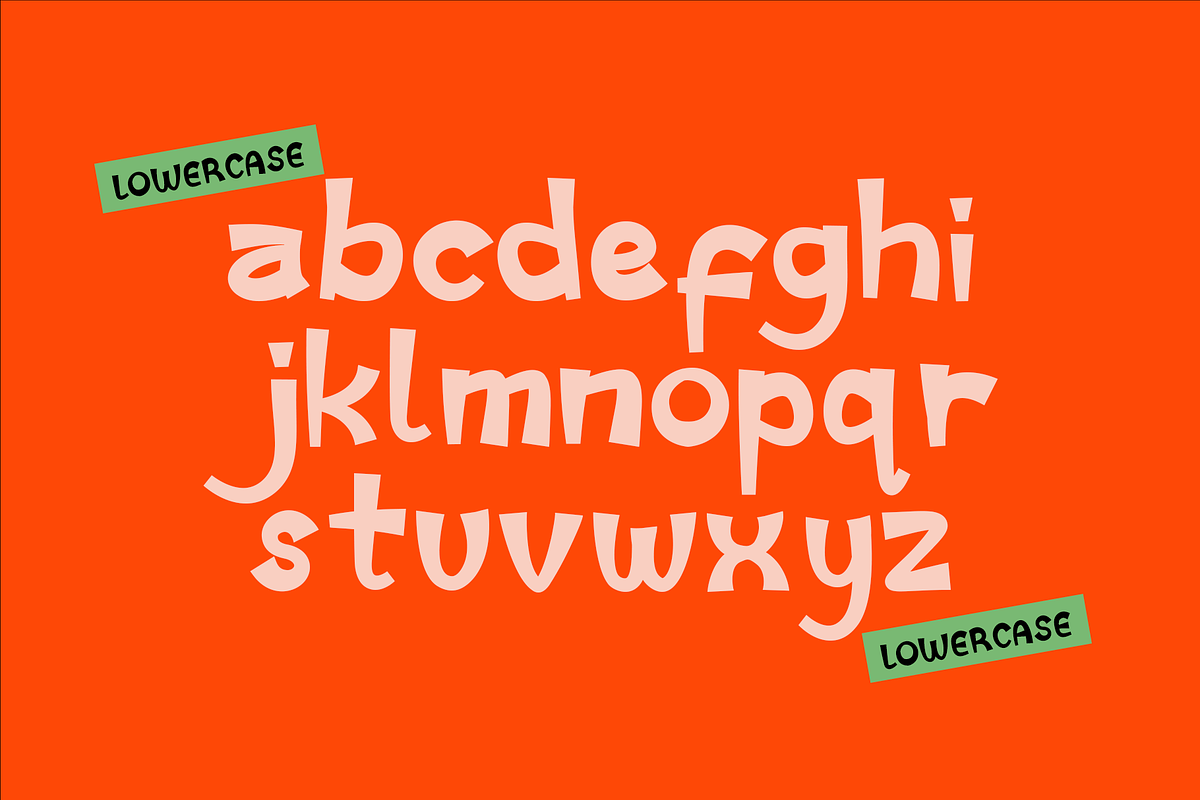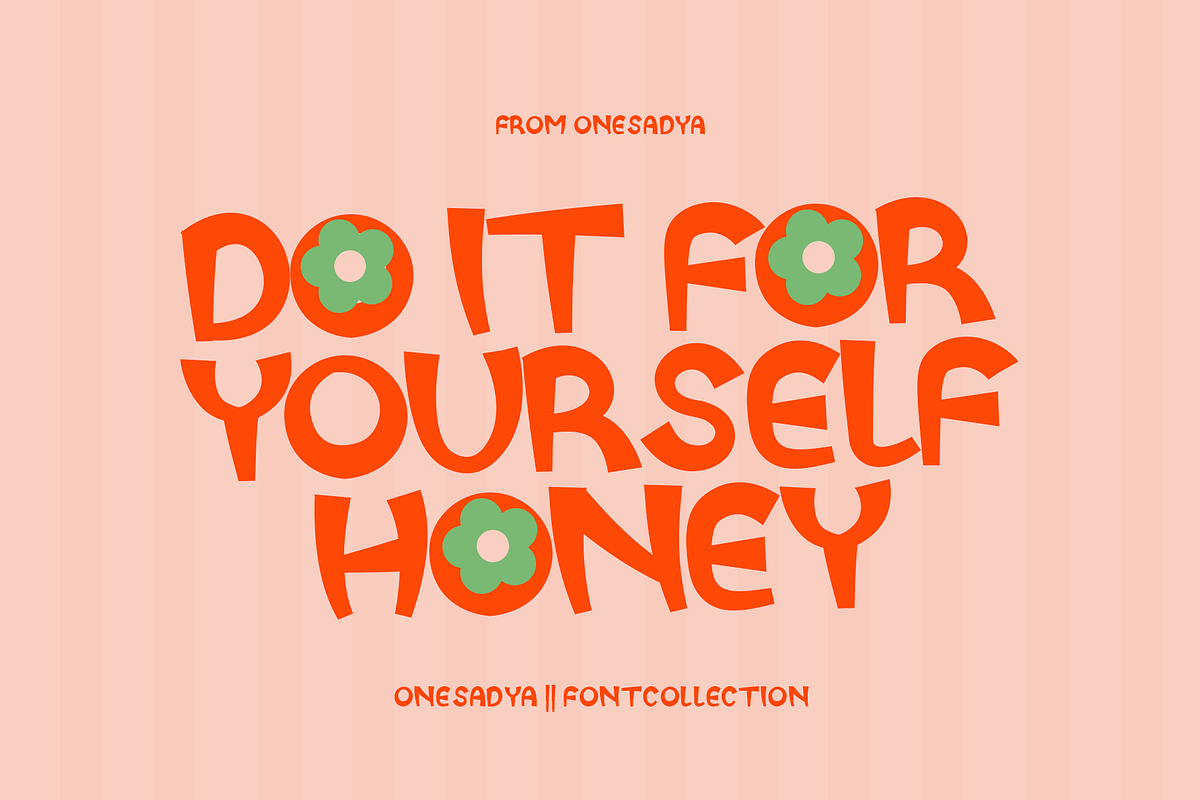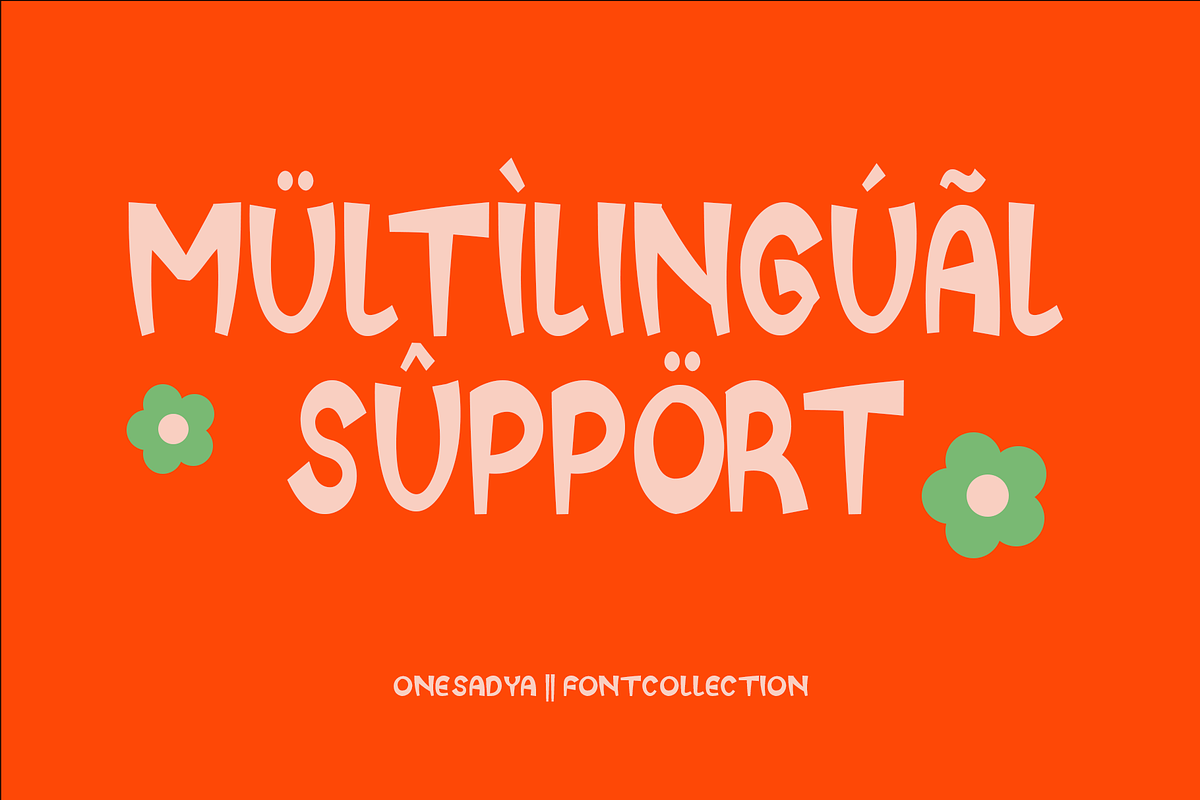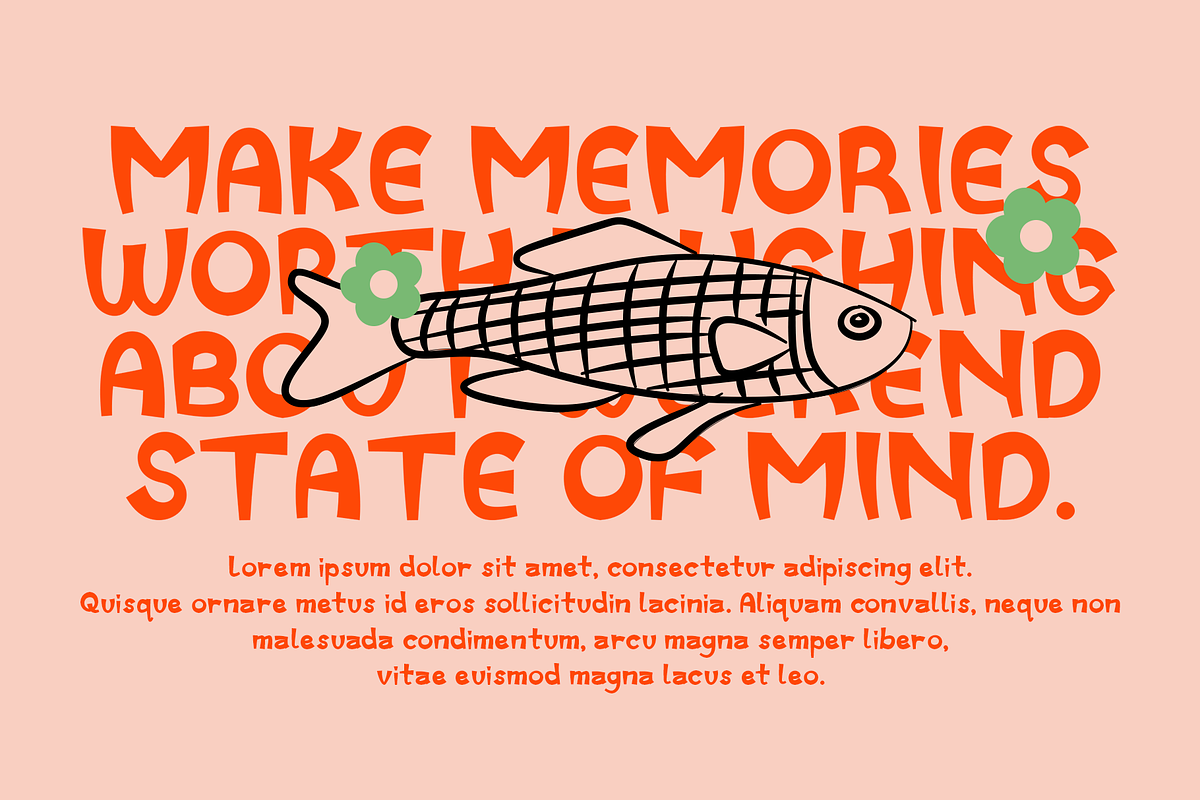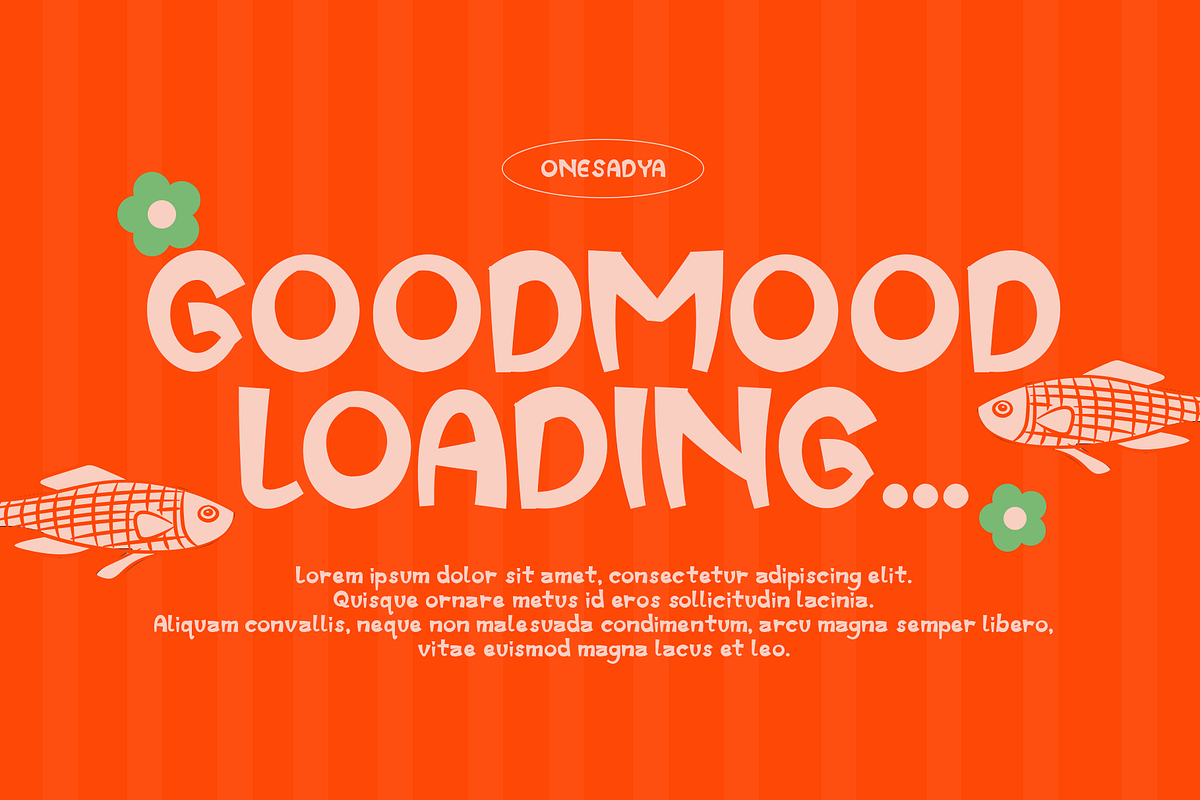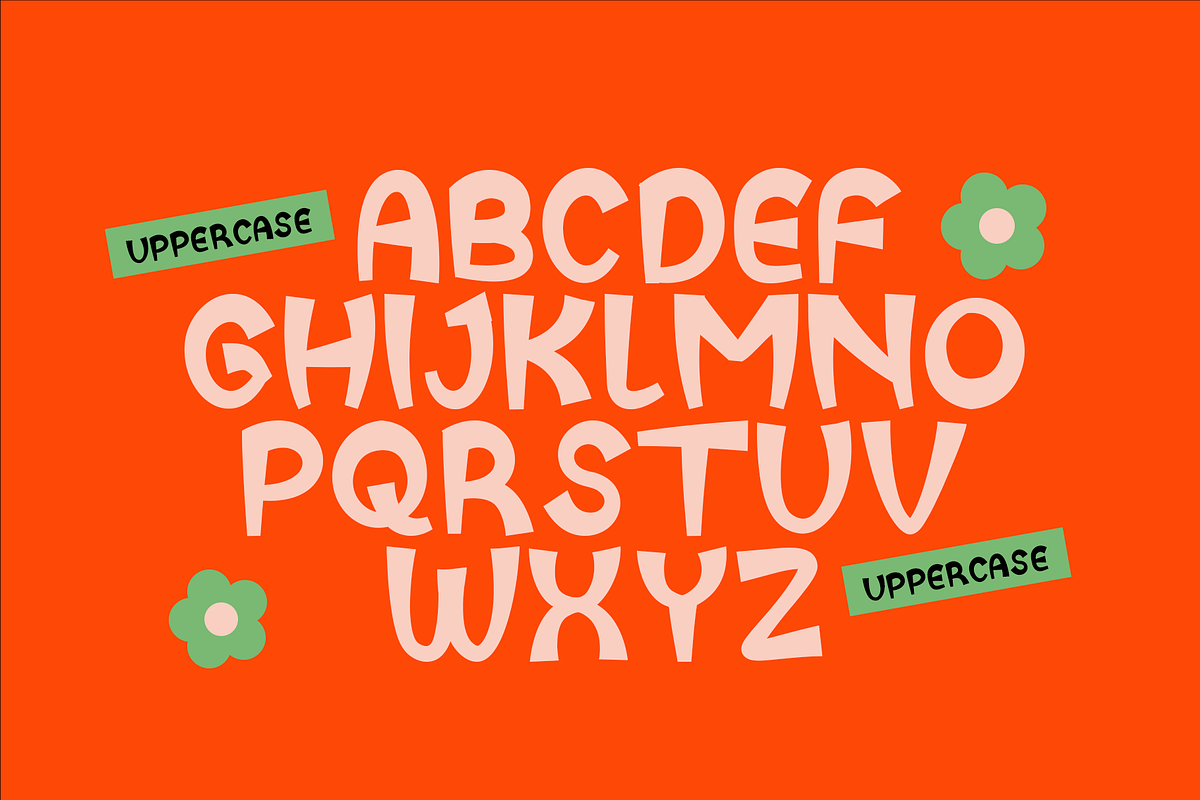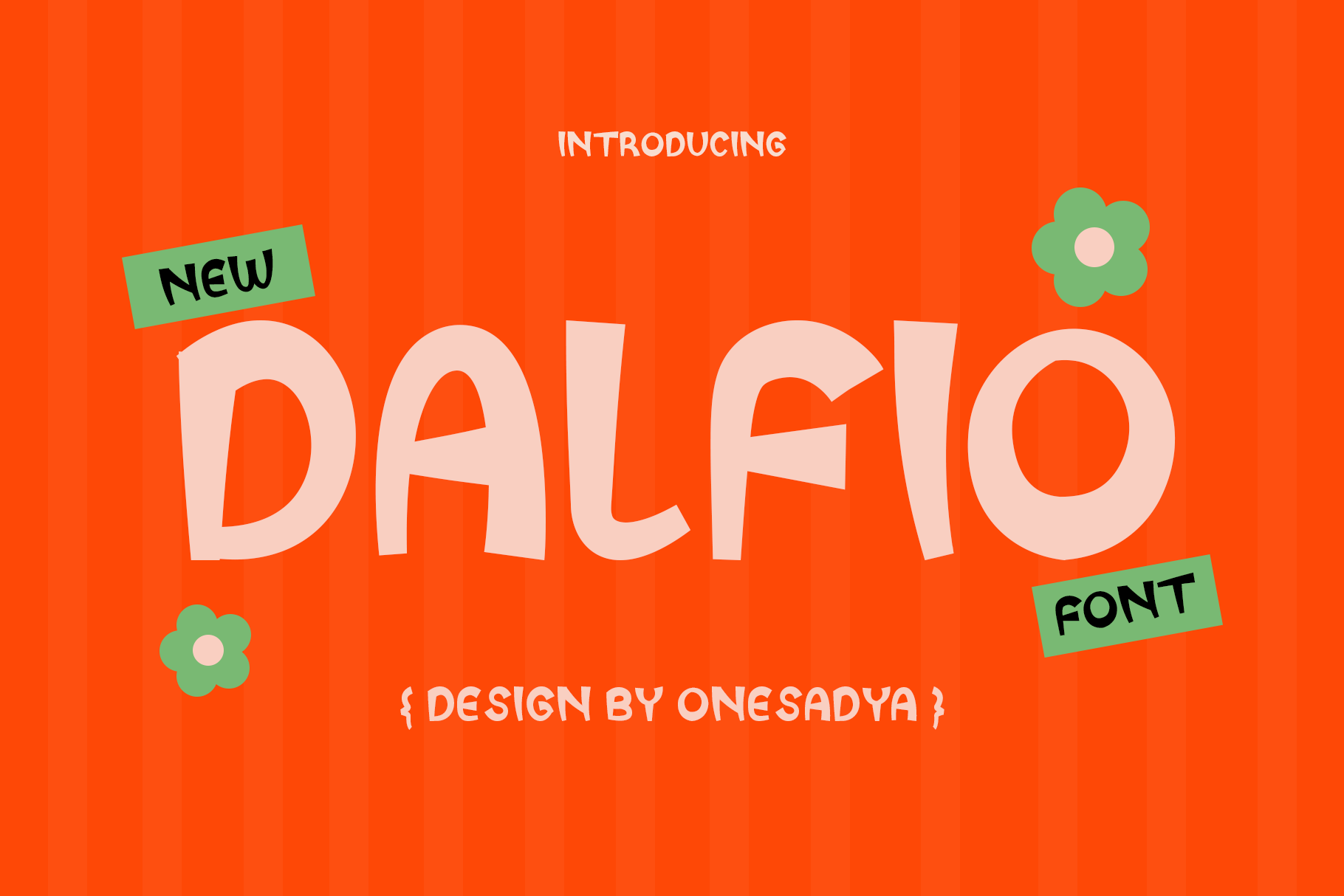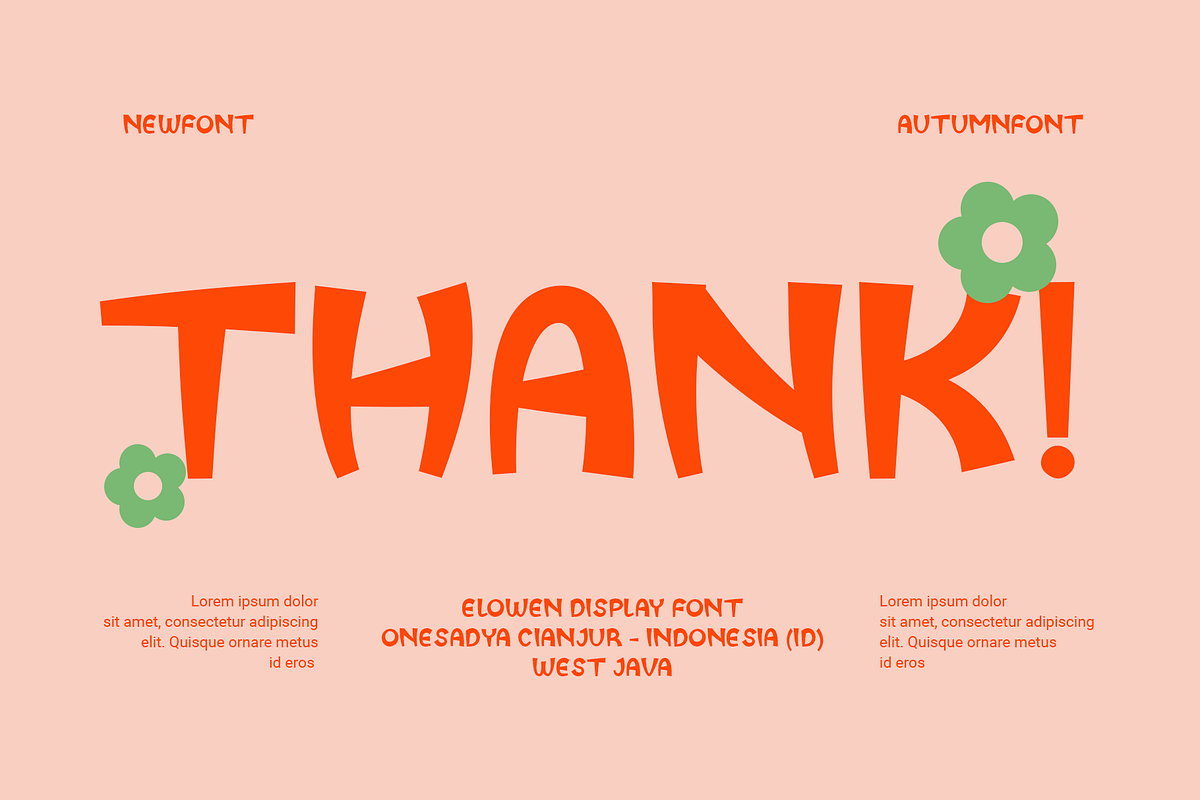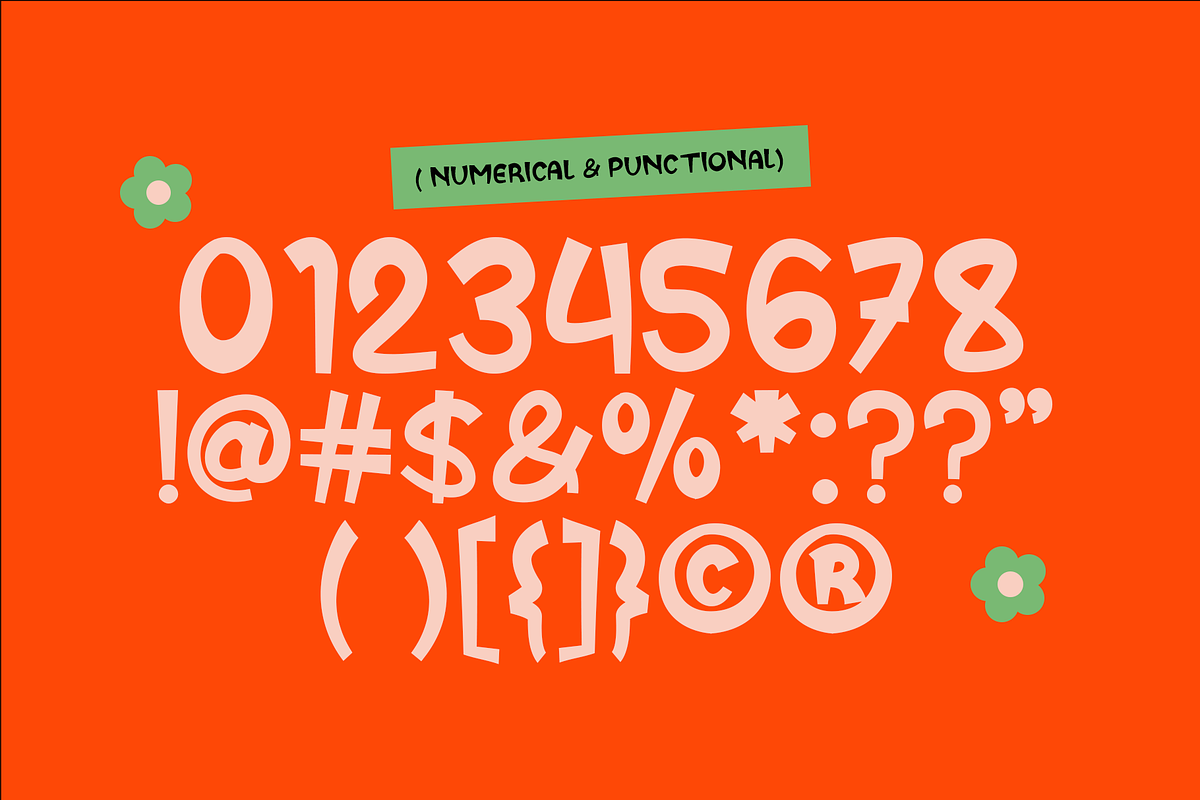
Dalfio – Playful Display Font
Dalfio is a fun and expressive hand-drawn display font designed to bring a playful, cheerful, and creative personality to your designs. With its quirky letterforms, organic shapes, and imperfect handmade feel, Dalfio adds a unique touch to any project.
Inspired by playful lettering and contemporary graphic design, Dalfio works beautifully for eye-catching headlines, branding, posters, packaging, social media graphics, stickers, invitations, apparel, children’s designs, and more.
Its bold and friendly character makes it perfect for projects that need a fun, youthful, and approachable visual style.
Playful hand-drawn display style
Bold and expressive letterforms
Organic and imperfect handmade appearance
Perfect for headlines and large typography
Great for branding and packaging
Suitable for posters, apparel, stickers, and social media
Fun and friendly personality for creative projects
Give your next creative project a playful personality with Dalfio — a cheerful display font made to stand out and make your designs more memorable.